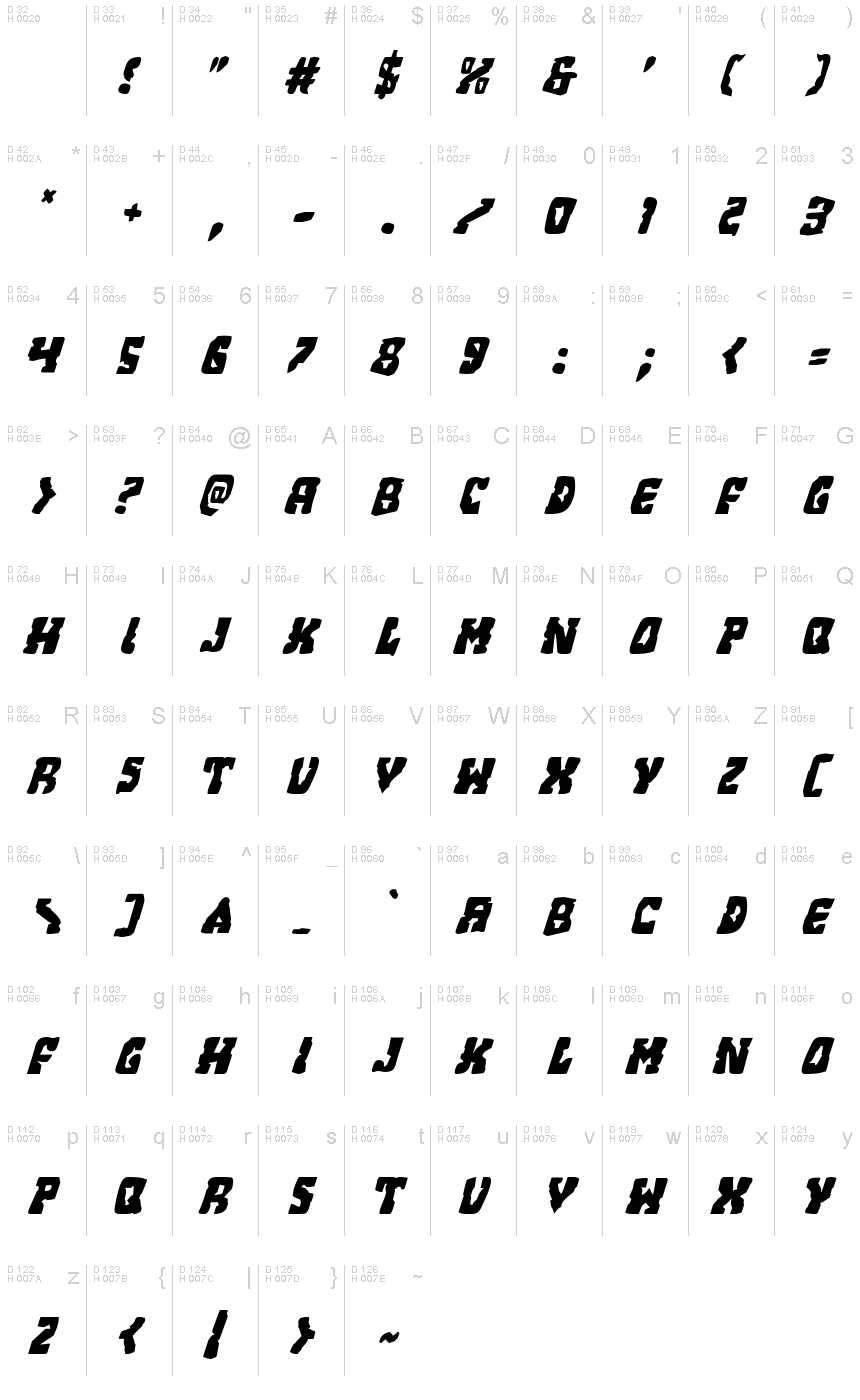
Beastian Italic by Daniel Zadorozny of Iconian Fonts is a free decorative display font with broad, forward-driving letters and an unruly cut-paper silhouette. Deep notches, hooked corners, and sudden wedges break up the dense strokes.
Sports posters are its clearest setting, where the aggressive shapes suggest speed and impact. The same rough-edged attitude suits action-game title cards, team merchandise, and music event graphics. Its chopped contours can echo lightning and claw marks in accompanying illustration.